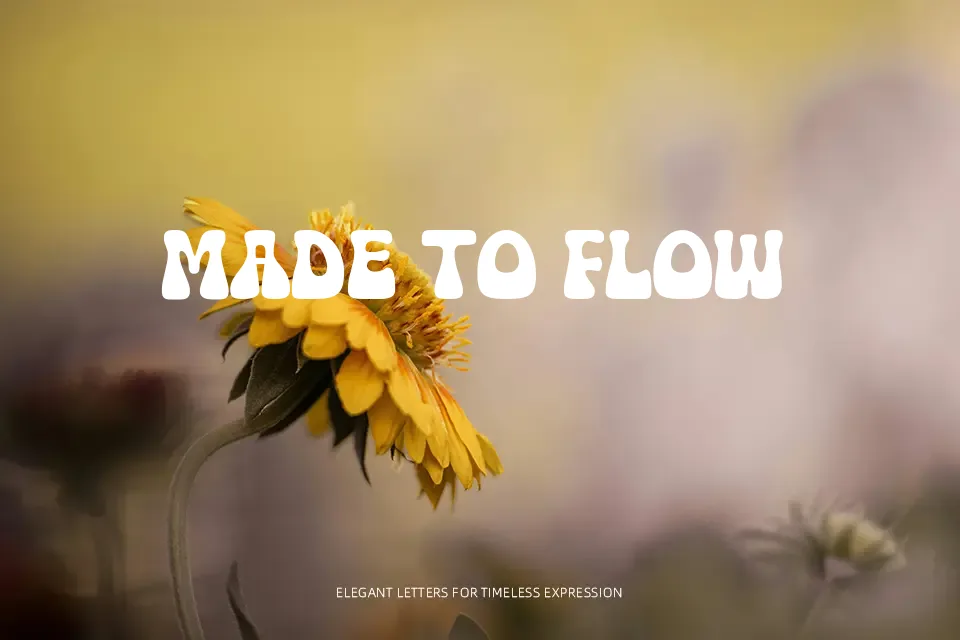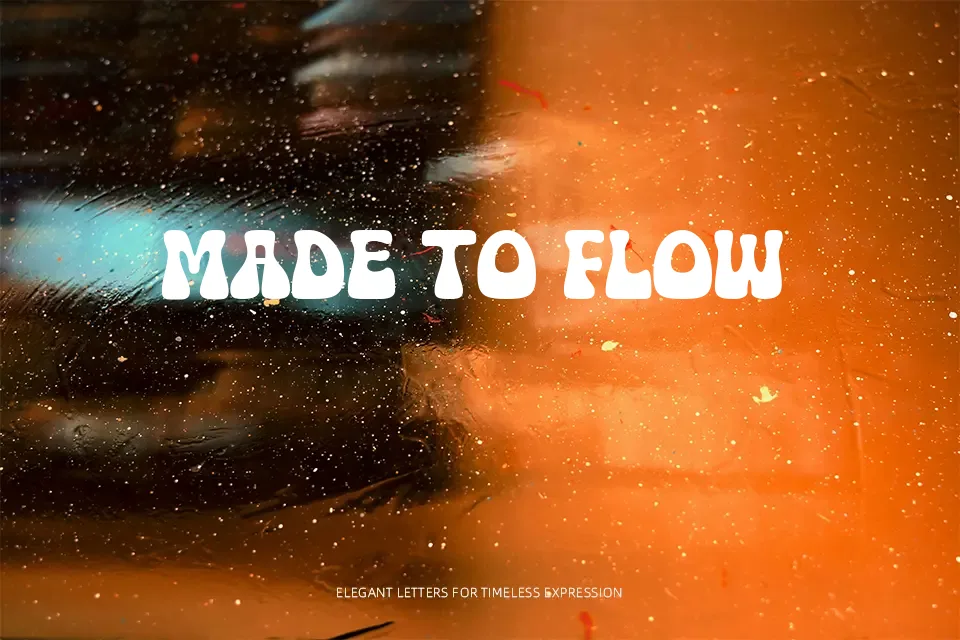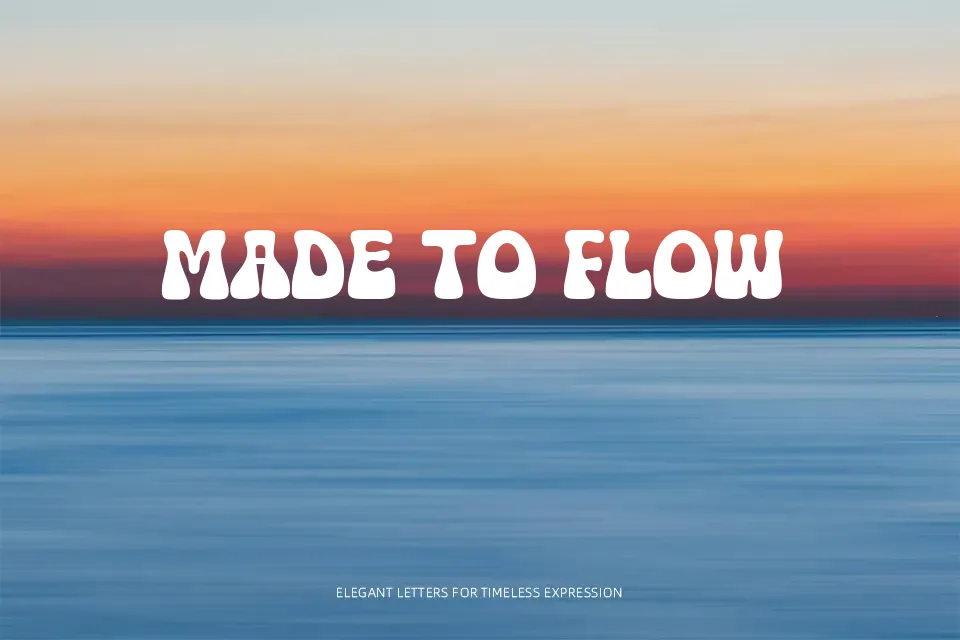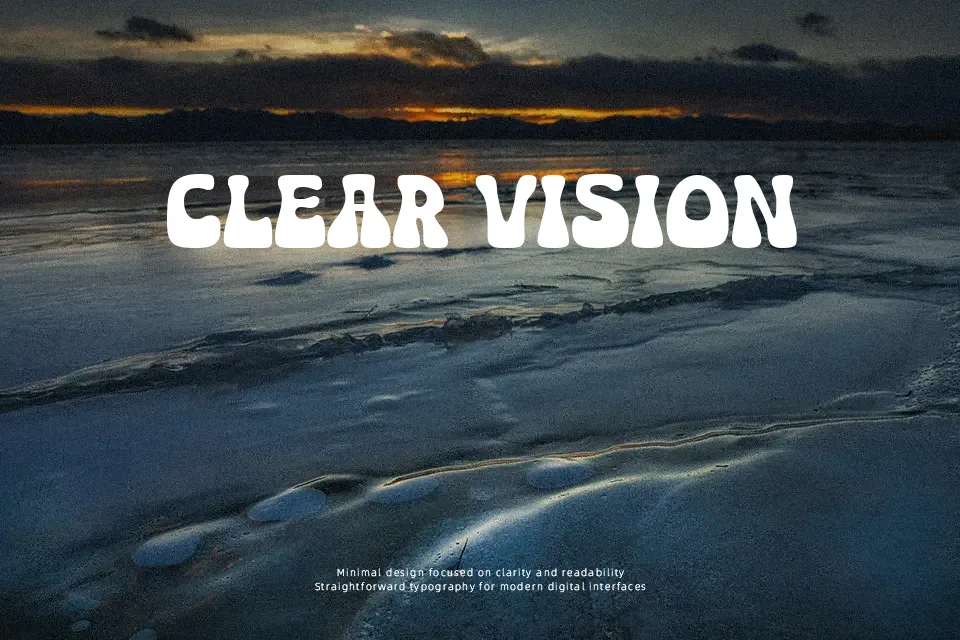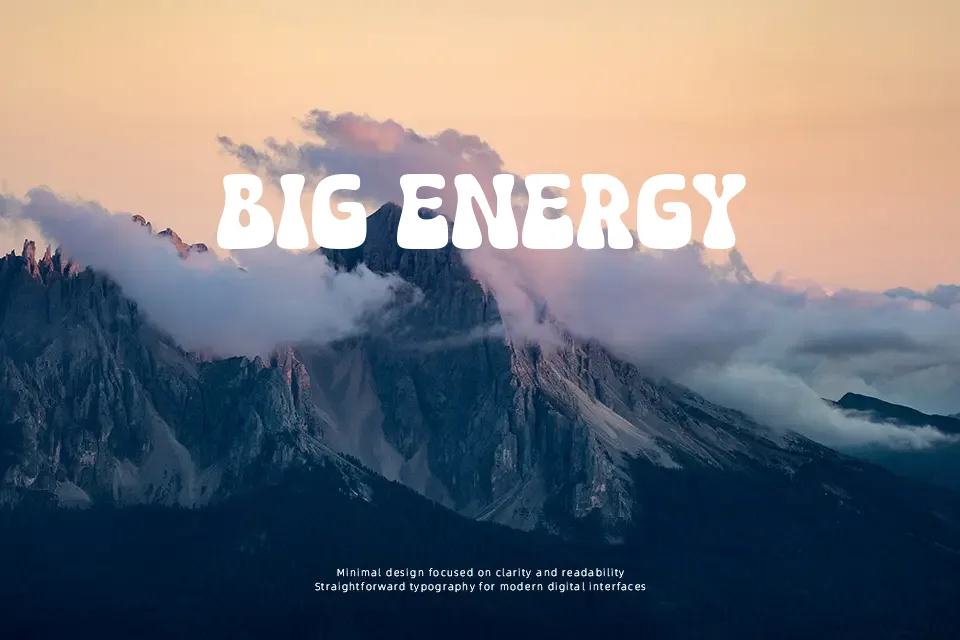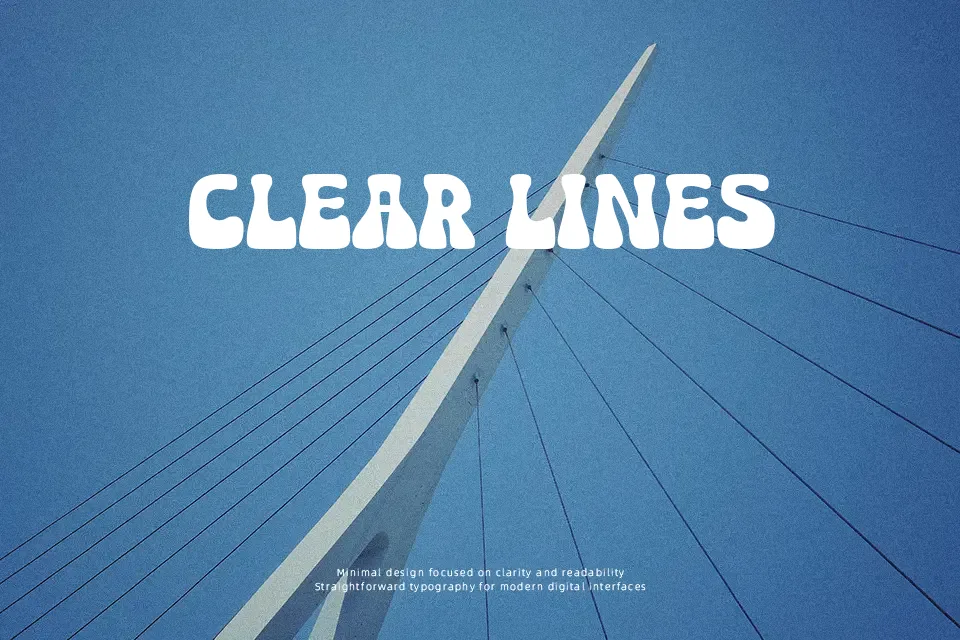
Super Festival Font
Super Festival Font works best as a large-scale display face, where its heavy, block-like forms and decorative retro character can be read quickly. The letterforms appear broad and firmly weighted, with low stroke contrast and a compact visual rhythm that gives short words a dense presence. It suits poster titles, product labels, event graphics, and logo-led compositions that need a strong silhouette. The spacing helps the design hold together in large headlines, but its stylized forms are less comfortable in small text or extended copy. Use it where a brief message needs visual impact rather than sustained reading.
Best For: music festival posters,retro product packaging,apparel graphics,social media headlines
Perfect for logo, music, and packaging, with a bold and decorative style.